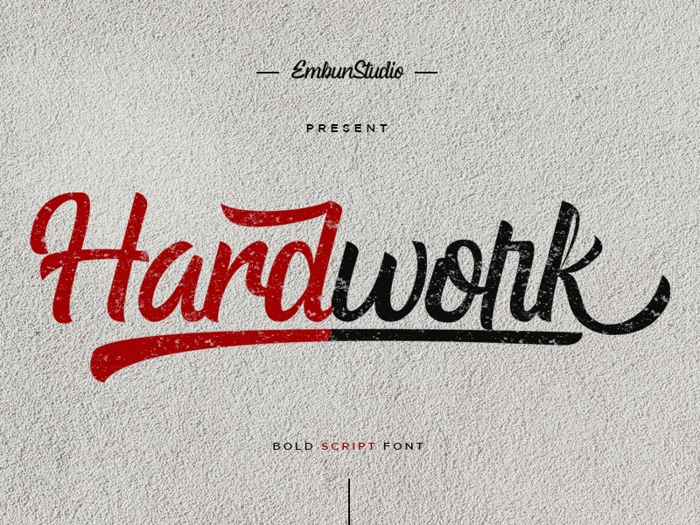
Hardwork Font
Hardwork Font is a Bold Script Font, clean, neat and modern look, suitable for your every project, such as logo, web design, brochure, poster and many more, with beautiful stylishtic set and alternat, you can create your own beautiful text and place it on your projec and the last, every alternate and stylistic is easy to use.